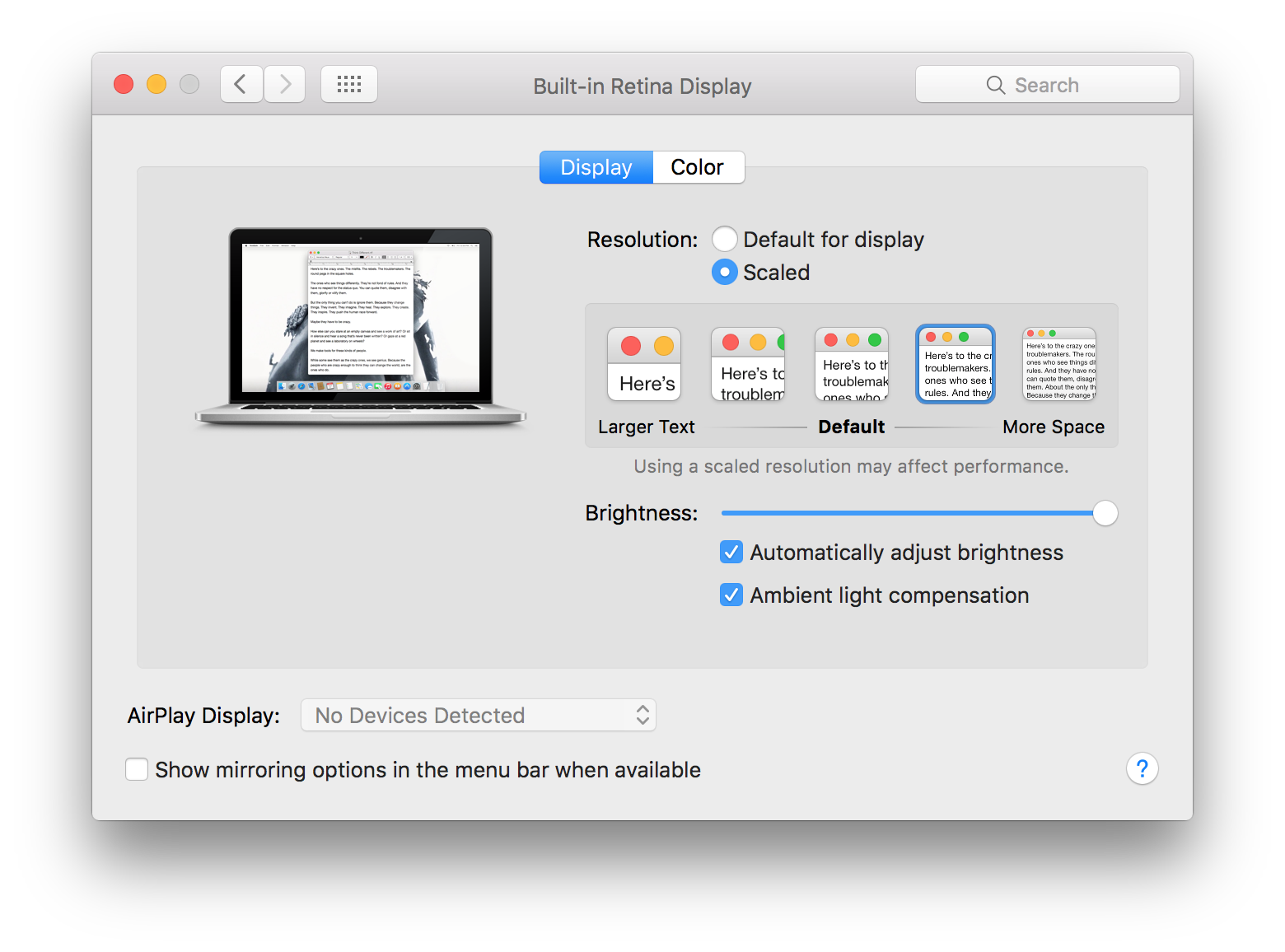
Does anyone know how to access the SF font on El Cap? I can't seem to find it in font book.
The files themselves are found in /System/Library/Fonts and have SFNS prefix. As to how one could make them appear in Font Book, I have no idea. I even tried copying them over to another Mac (running Mavericks) and I can't get them to appear in Font Book there either.
You cannot use the UI-tagged version as a typeface font because it has several subtle tweaks and cheats to make it look prettier in the system. This is also why you'll never find the system font "LastResort" which is the one which throws up the little diamond-with-a-question-mark if it really can't find a substitute typeface character.
This is SF Compact, not SF for iOS and Mac. They are distinct.
I don’t think there is such a thing as an ‘UI-tagged’ version. SF was created for just this purpose. The simple reason is that Apple likes to keep the typeface exclusive to the system and Apple software promotion and intentionally blocks it from showing in font panels and Font Book. They own the typeface after all, they could make it available to everyone. Developers are under a licence agreement and the rules for using the typeface are very strict, i.e. only for Apple software development and the promotion thereof.
Ah I didn't realise that Compact was a different font, I assumed the 'text' and 'display' variants were the two different versions, my mistake 😛
The hidden system fonts have been a thing for a good long time though (definitely by OS8), it meant that even if you went mad and combed your system for every font in every folder and then deleted them, your system would still run.
These are for different font sizes. Display is for larger text (20pt and above), Text for everything below that. Text has some different characters and a different kerning to improve its legibility at smaller sizes. SF Compact is a different cut, with flatter round shapes. Apple had an interesting developer session about the new typeface at the WWDC, if you are interested in that.